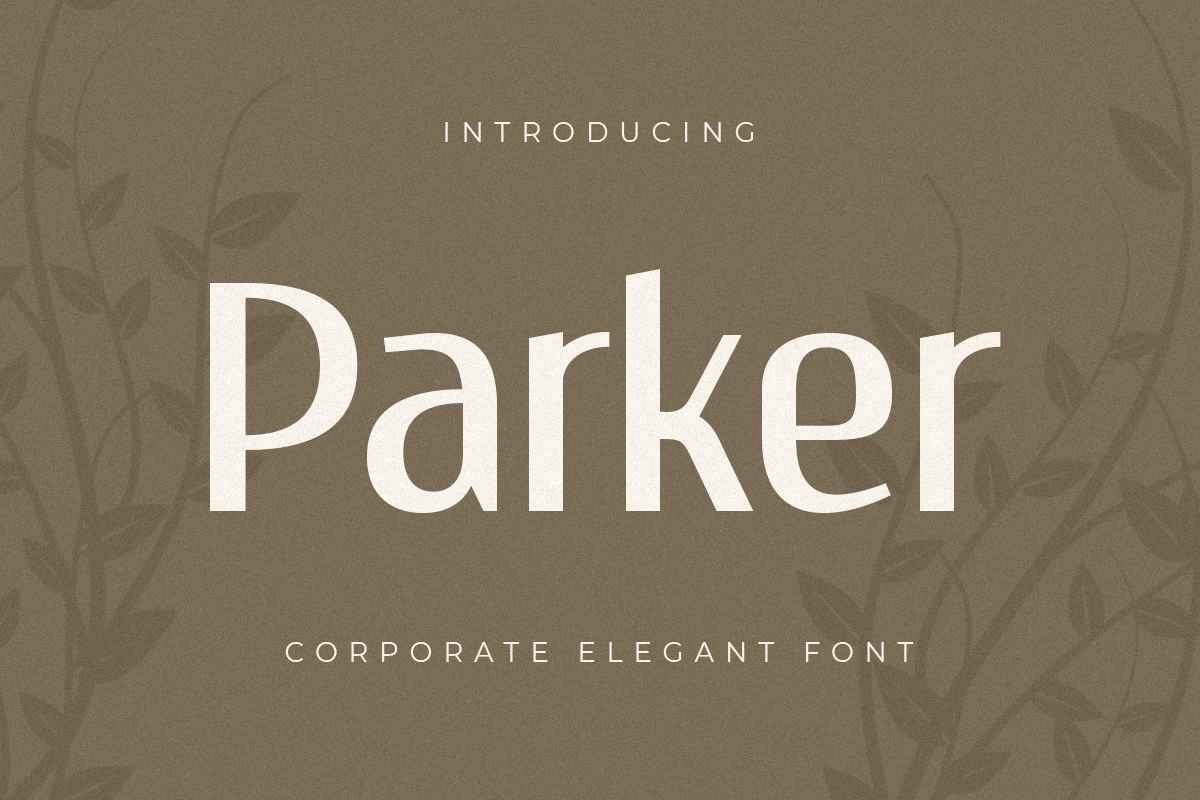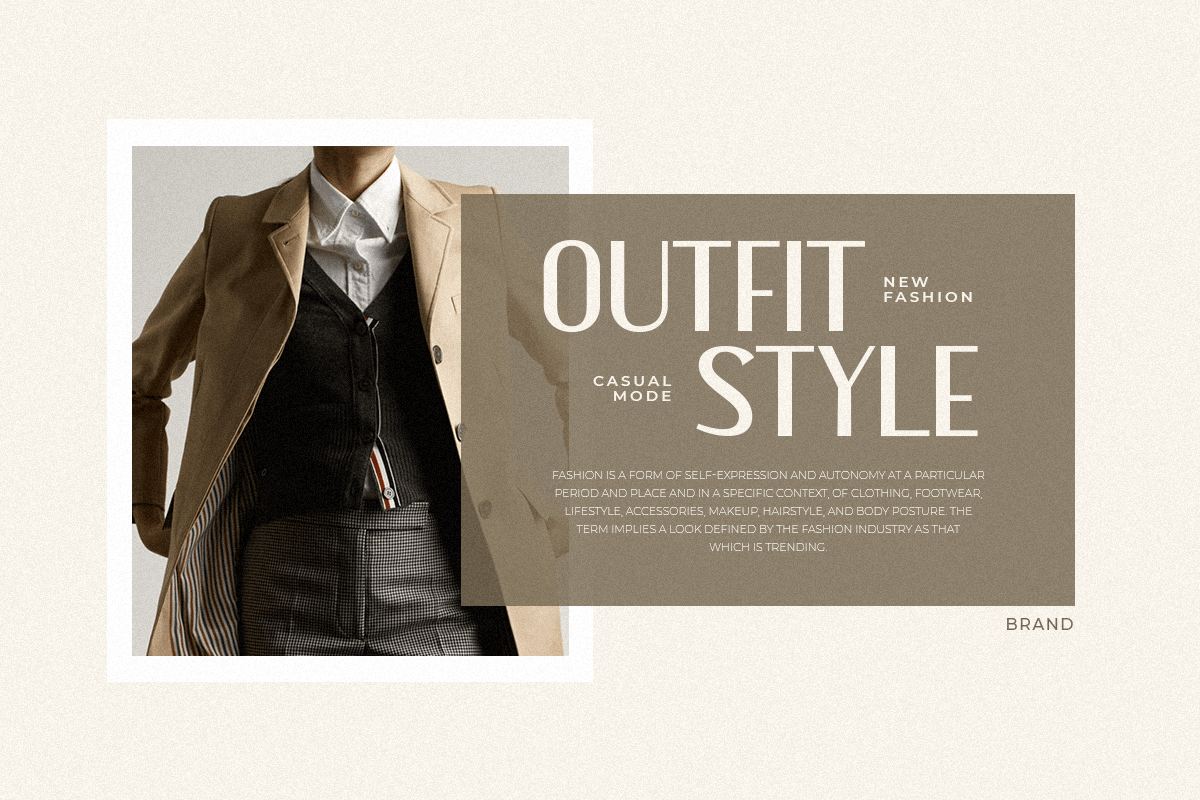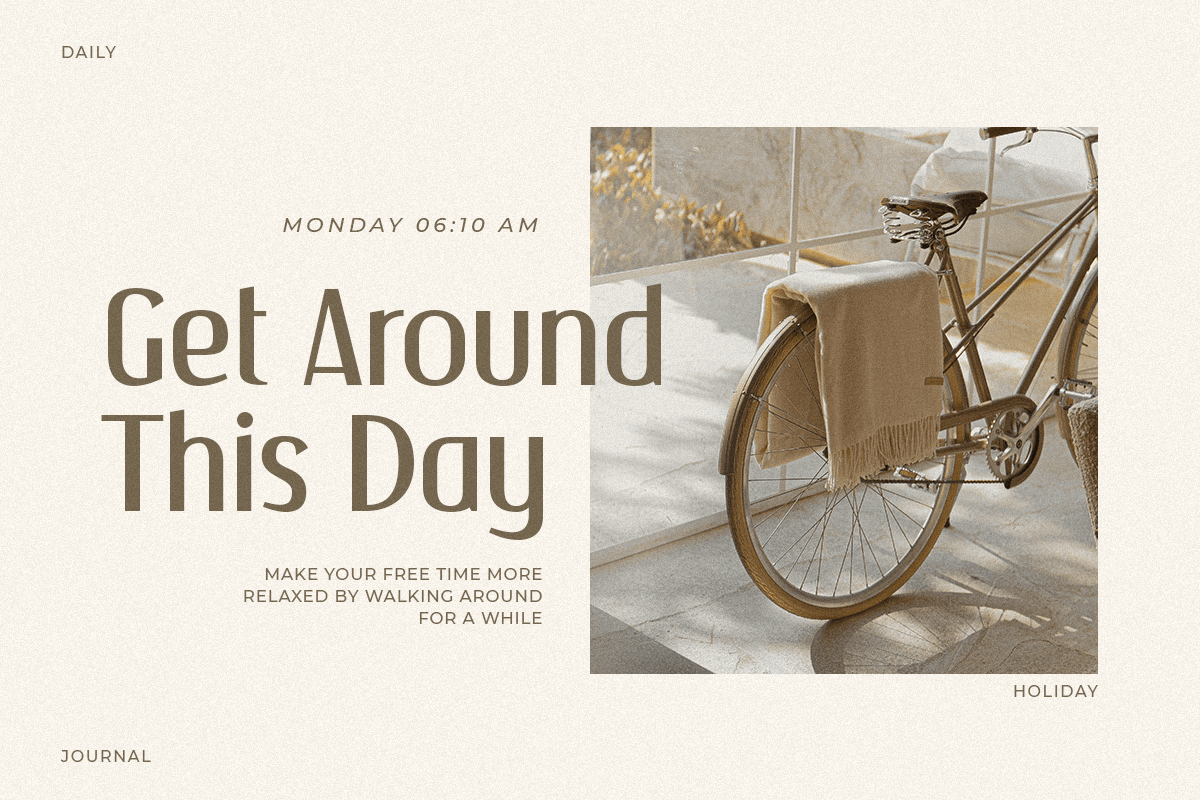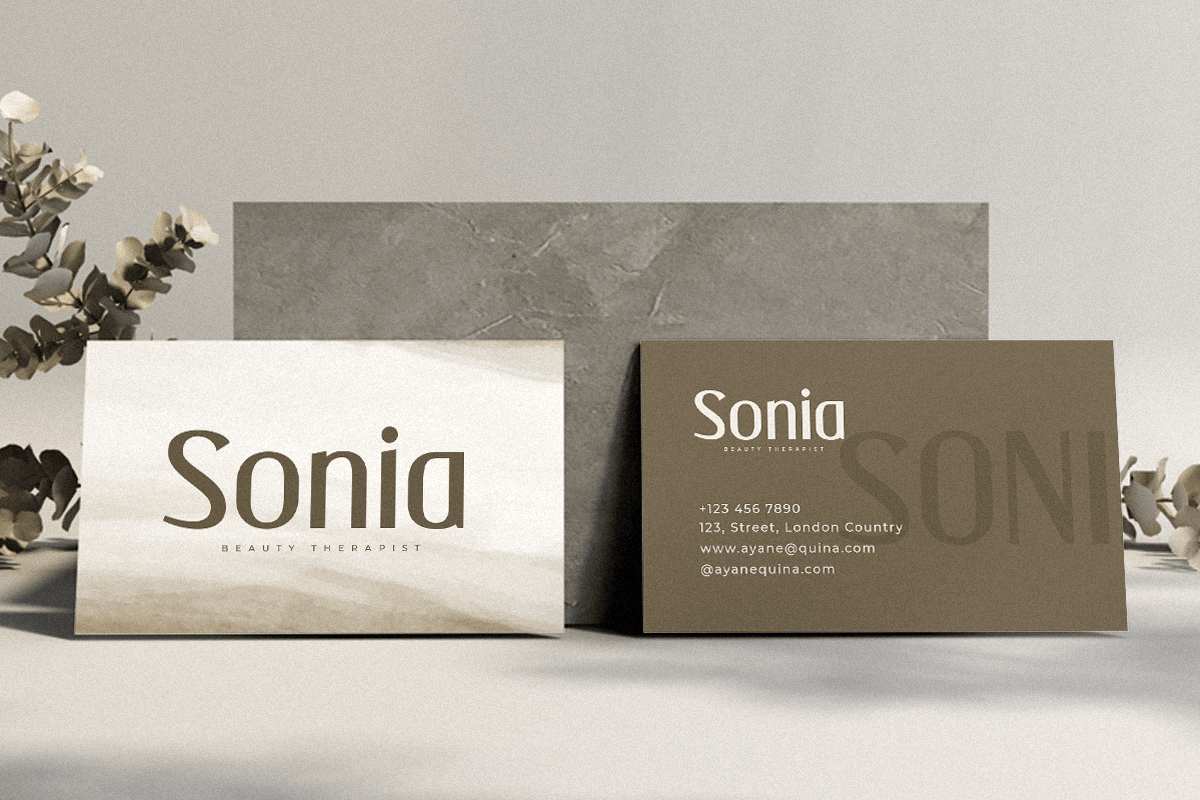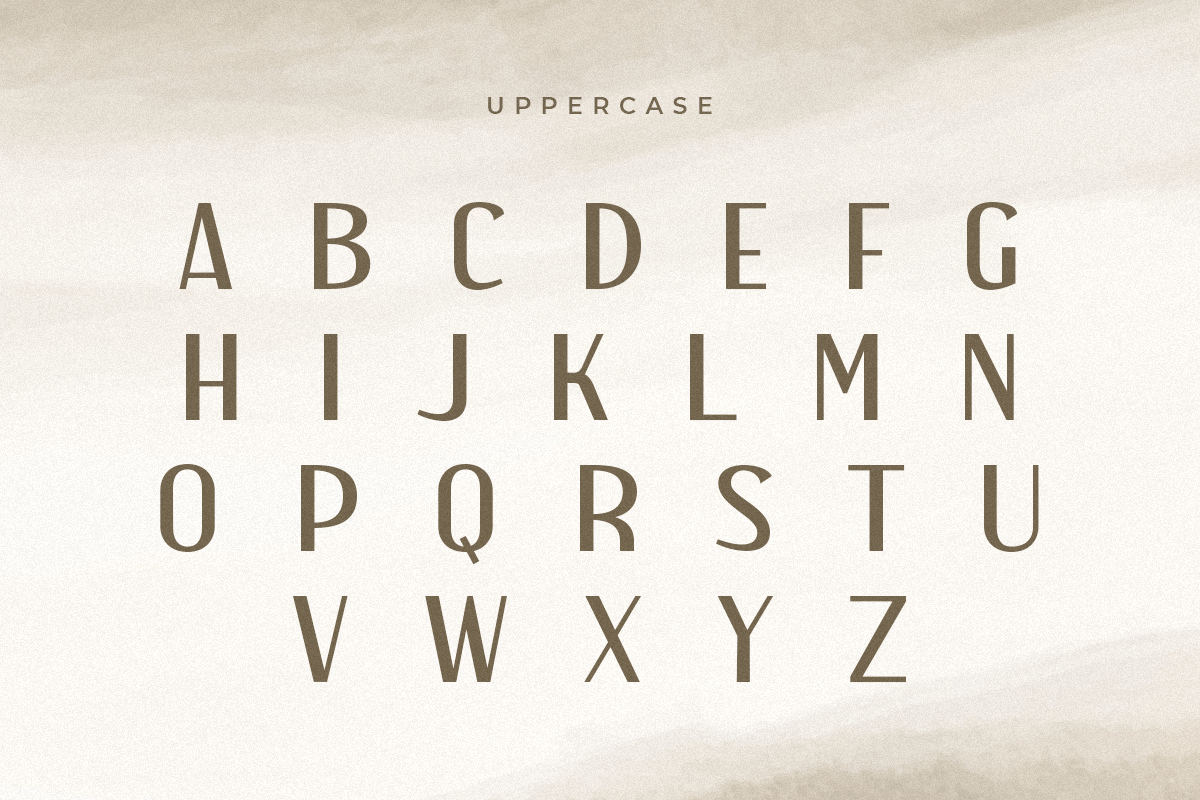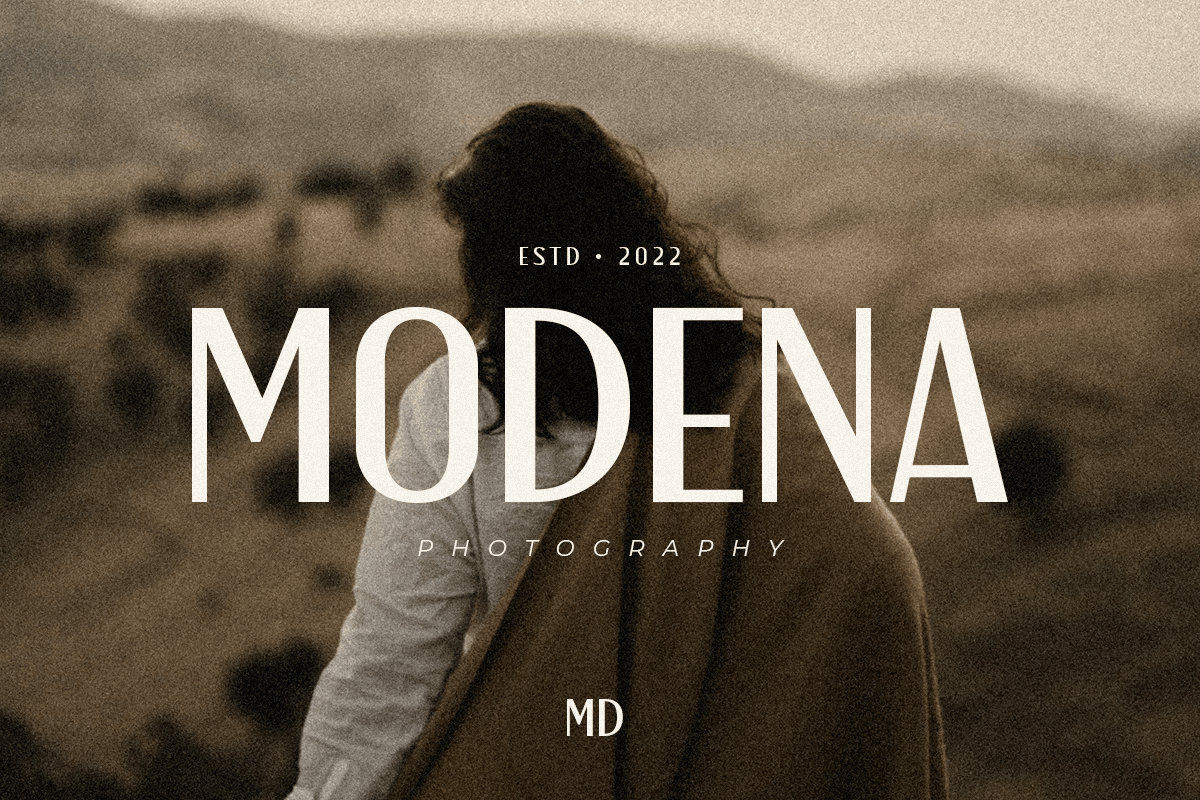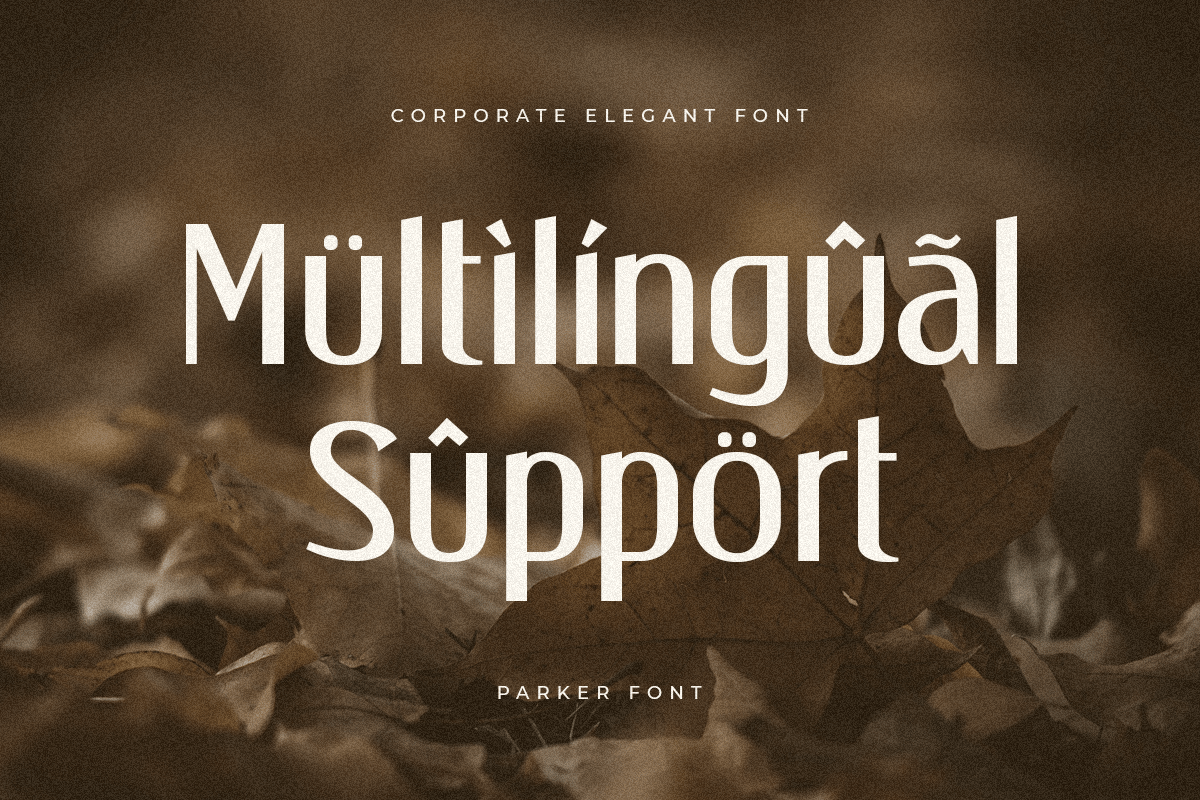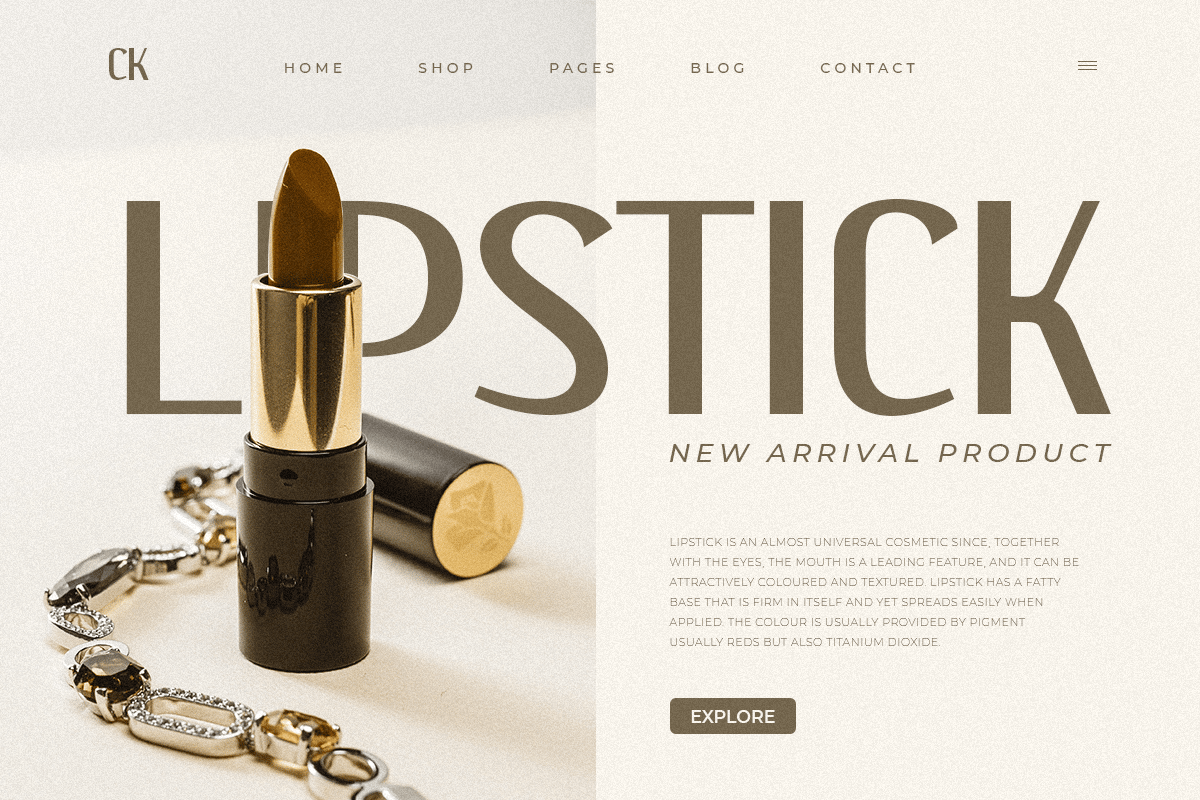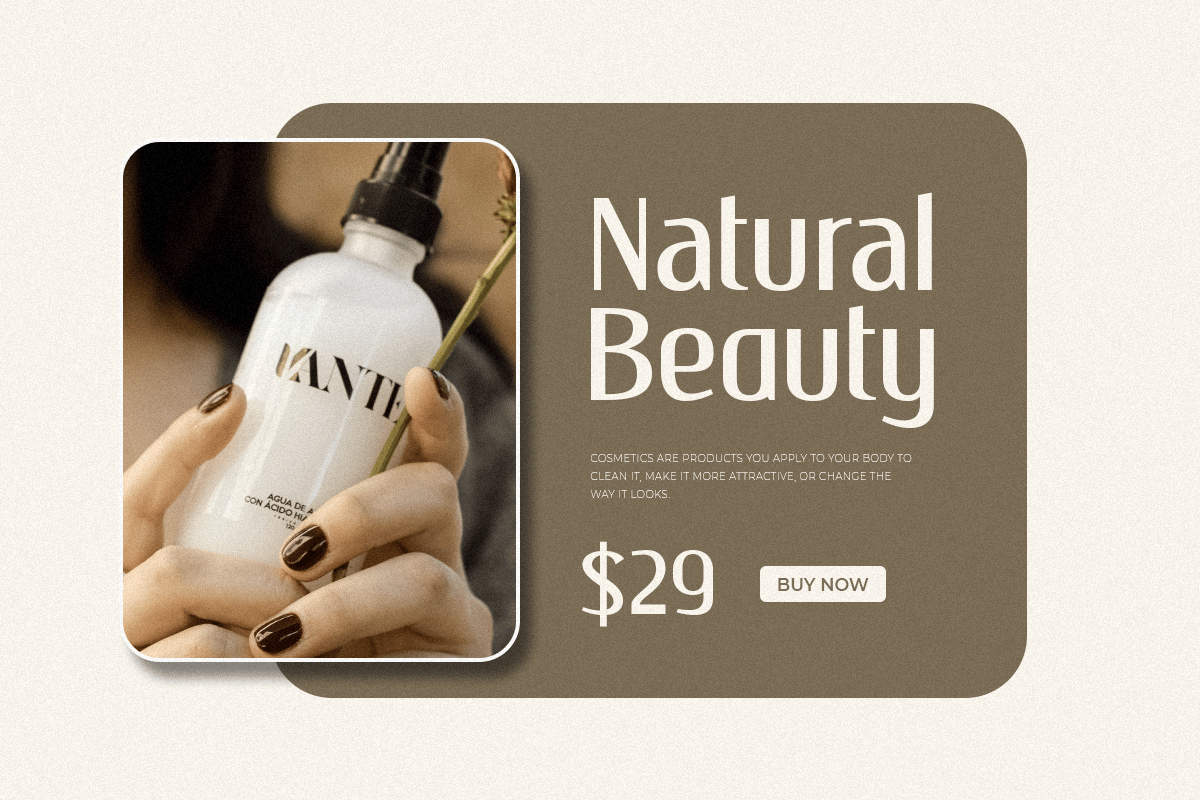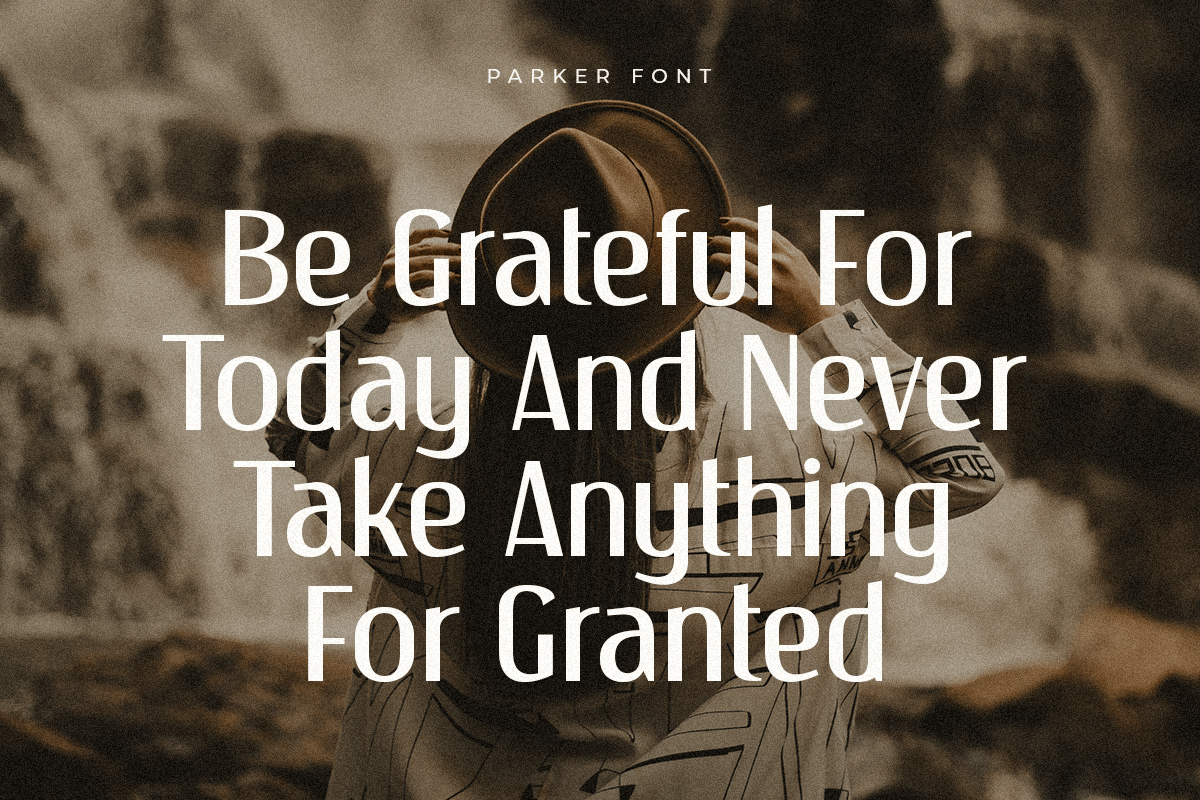
Parker – Corporate Elegant Font
An elegant sans serif font with extra perfect contrast style, ready for any branding needs will be ready to add value of your brand. It so nice to leverage designer or product owner that need solutions to make their design look more classy and modern. And specially for Parker font, We prepared any ligatures, and any alternate characters to help you create unlimited variations for your creative needs.
Parker serif font ready with:
- Any options to get creative variations (combination of Alternate and Ligatures)
- Preview as a inspirations that you can do with Parker font
- Ready with Lowercase and Uppercase characters